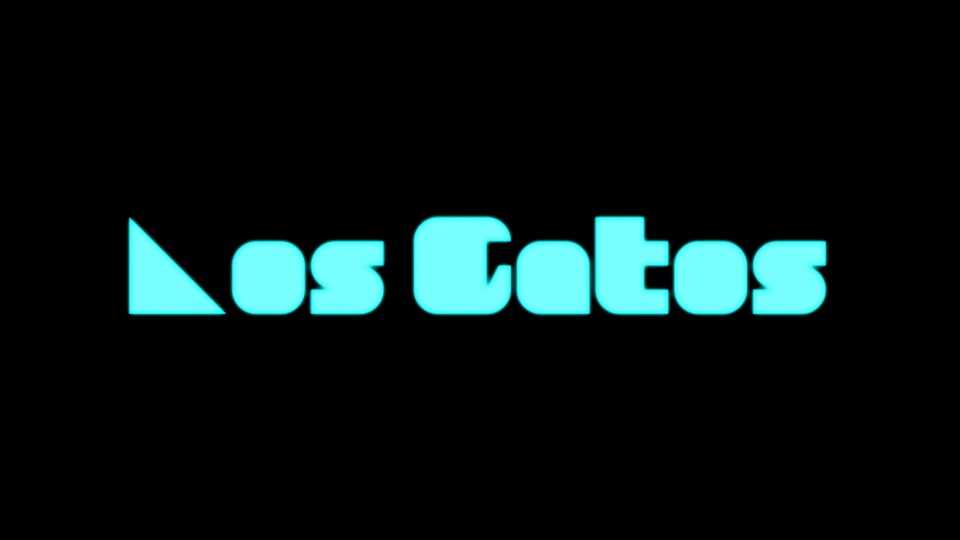
Download Los Gatos font, an ultra-fat geometric display typeface that boldly defies convention and demands attention. Los Gatos font is a powerhouse of design, boasting an unprecedented weight that makes a striking impact in any creative endeavor.